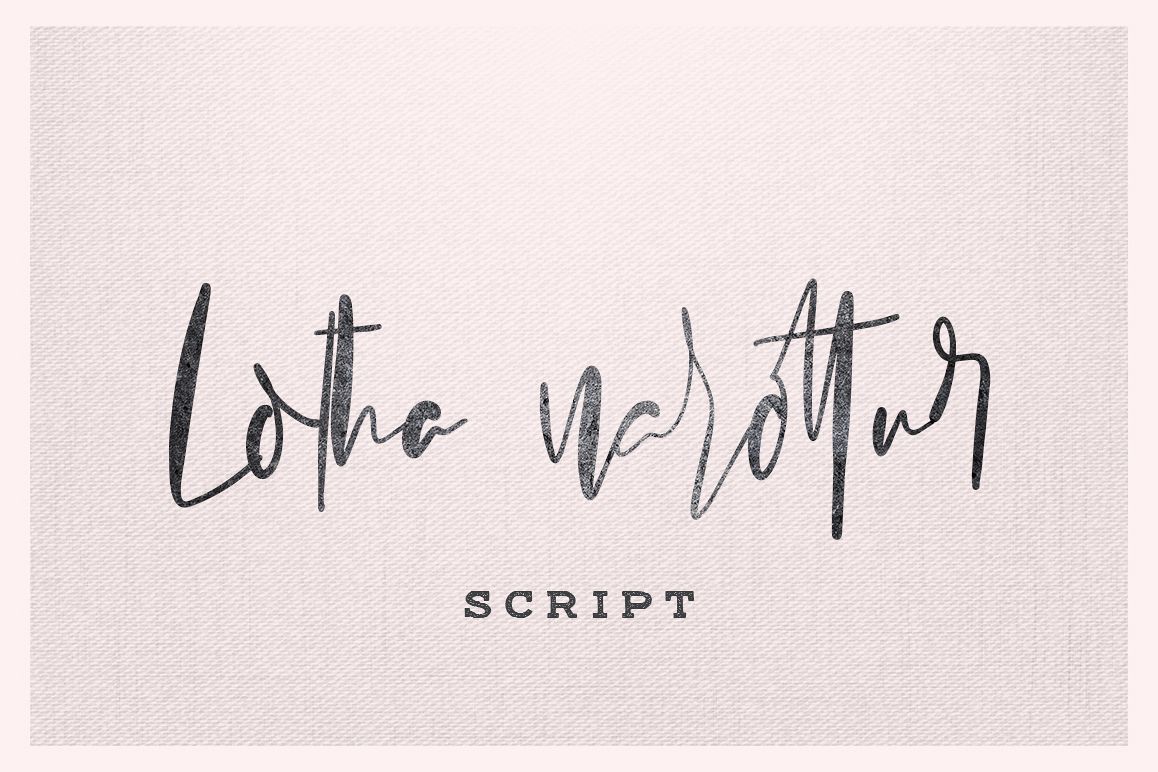
Lotha Narottur
Lotha Narottur modern script font with modern style, this font will perfect for many different project ex: quotes, logo, blog header, poster, banding, fashion, apparel, letter, invitation, stationery, etc...